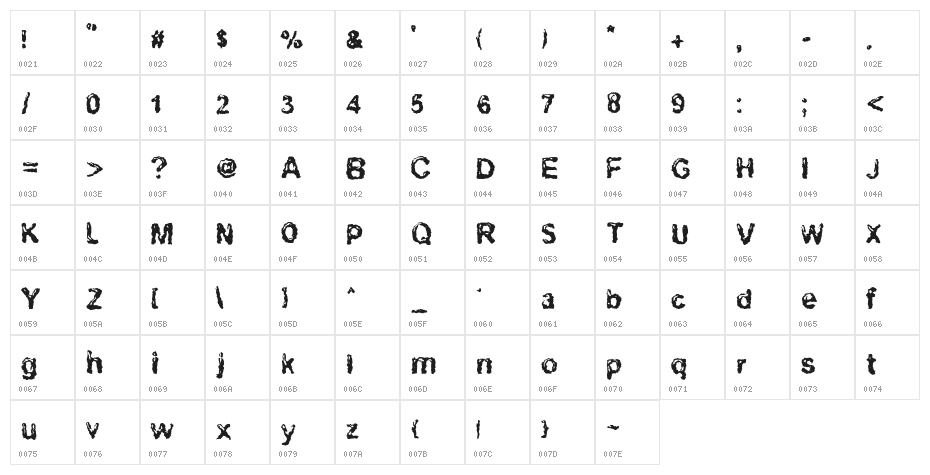
RuohomattoSans Font
| Vorgeschlagene Projekte | Ideal for posters, album covers, artistic branding, and creative projects that require a bold, unique statement. |